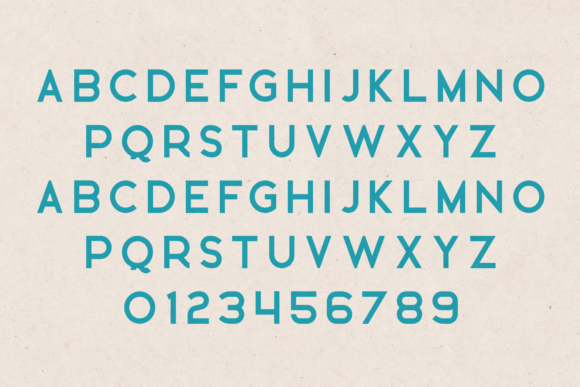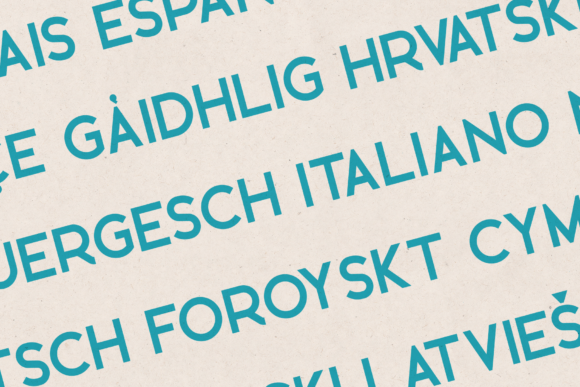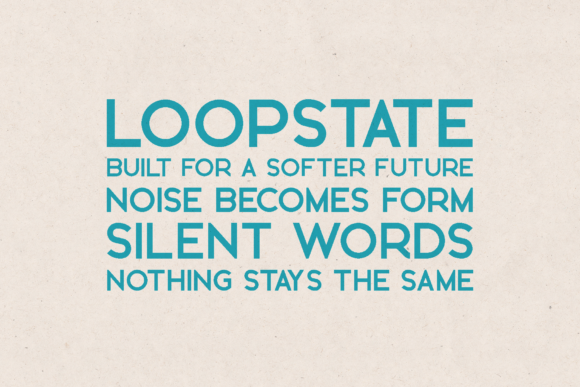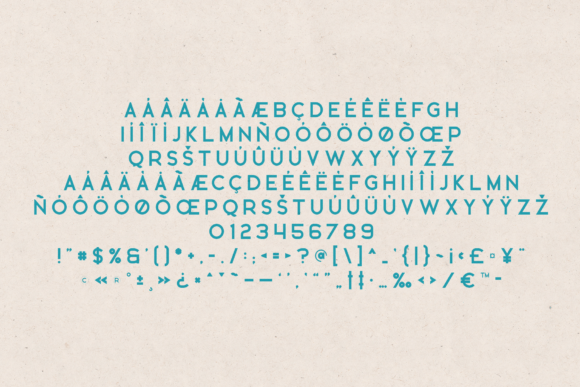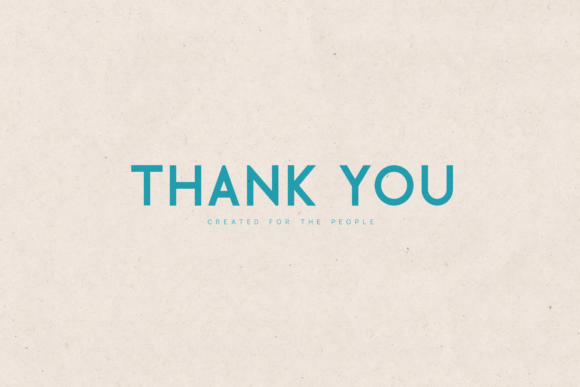
The Power of a Bold Headline
Have you ever stared at a blank page, struggling to come up with the perfect headline that captures the essence of your project? You’ve poured your heart and soul into the content, but the words just aren’t jumping off the page. That’s where the magic of typography comes in. A well-designed headline can elevate your message, grab attention, and leave a lasting impression.
Enter the Bronx Headline Font, a modern sans serif font designed to deliver clarity, impact, and versatility across both print and digital projects. With its clean geometric forms and confident letter shapes, this font is a game-changer for designers looking to make a statement. Whether you’re working on a fashion campaign, a corporate branding project, or a creative editorial layout, the Bronx Headline Font is the perfect tool to help you stand out.
Bronx Headline Font Features
- Font Style: A bold, sans-serif font with a distinctive, rugged feel.
Design Review: Bronx Headline Font
Overall, I’m quite impressed with the Bronx Headline Font. It’s a great choice for those looking for a bold, attention-grabbing headline font. ✨ Here are a few things that work well:
- Uniqueness: The font has a distinctive look that’s hard to find elsewhere.
- Legibility: Despite its bold appearance, the font is still easy to read, even at smaller sizes.
- Expressiveness: The font’s irregularities give it a lot of character and make it perfect for headlines that need to convey a sense of energy and excitement.
That being said, there are a few limitations to consider:
- Flexibility: The font may not be the best choice for body text or other applications where a more neutral font is needed.
- Consistency: Some characters may not be perfectly symmetrical, which could be a issue for designers who value consistency.
- Lack of font pairing options: It’s a bit challenging to find fonts that pair well with the Bronx Headline Font.
Overall, I think the Bronx Headline Font is a great addition to any designer’s toolkit, but it’s not a one-size-fits-all solution. Use it wisely, and you’ll be rewarded with bold, eye-catching headlines that grab attention.
The Bronx Headline Font is perfect for:
1. Creating bold and eye-catching headlines and titles.
2. Adding a touch of urban grit to your designs.
3. Creating a unique and memorable brand identity.